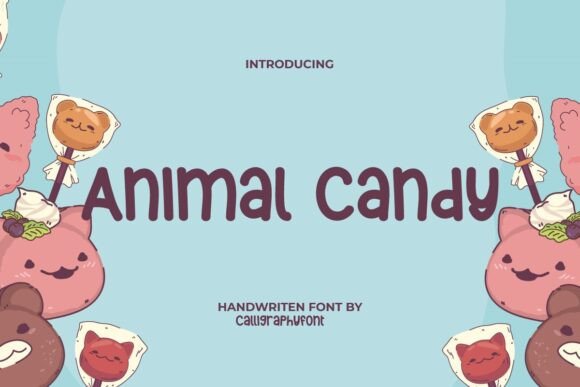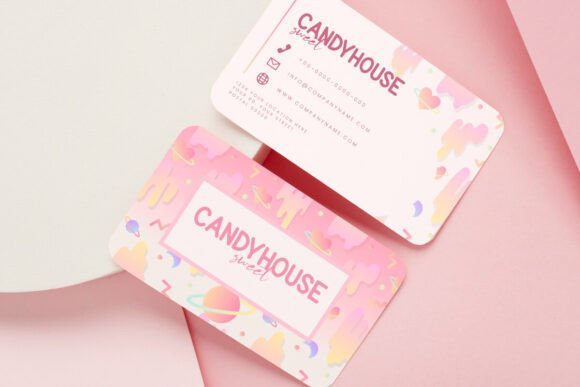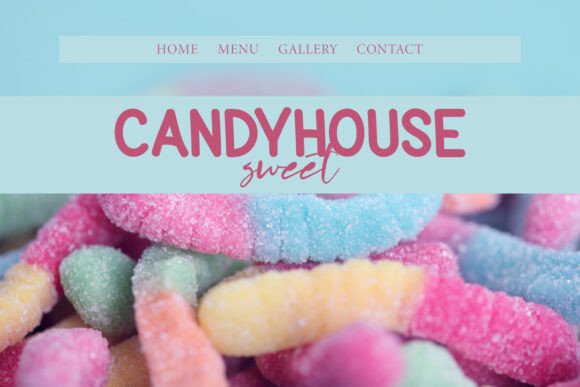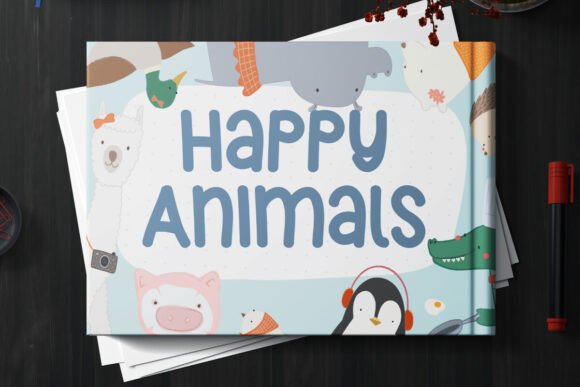
Animal Candy Font
About the Animal Candy Font
Introducing the Animal Candy Font, a beautifully crafted typeface designed to elevate your creative projects. Animal Candy Font is a fun comic display font that was originally inspired by some kids’ favorite cartoon shows. This adorable font will be suitable for creating cards, brands, invitations, flyer, fun social media posts, greeting cards, header, headline, invitations, label, logos, menu brochure, mockup template, picture books, poster, product packaging, quotes, screen print, signs, stationery, stickers, title, watermarks, website, and whatever creative projects you have.
Animal Candy Font’s playful energy makes it ideal for children’s books, branding for playful products, and eye-catching posters or social media graphics. It excels in headlines, short text blocks, and logos where its whimsical charm can shine. Avoid using it for body text or long paragraphs; its informal style is less legible at smaller sizes.
Pairing Animal Candy with a clean sans-serif like Open Sans for body copy provides a strong contrast, balancing the font’s playful energy with readability. For a more sophisticated feel, consider a classic serif like Garamond, which will add a touch of elegance to projects using Animal Candy as a headline or accent font.
The overall personality is best described as cheerful and friendly, making it a perfect choice for brands targeting a younger audience or conveying a sense of fun and approachability. Avoid using it for projects requiring seriousness or formality.